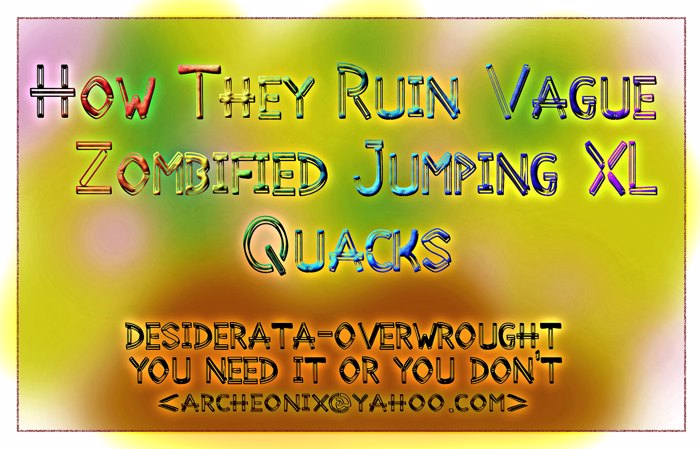
Desiderata Font
Overwrought Style
i torture my fonts. i can't leave them go. i try profane experiments on them in a variety of vector drawing programs, and then when they don't match up to my expectations i use goudy and new century schoolbook in my work. to humiliate them? or myself?
this font like so many others, could have been something better than it is. but i made it try to be something it never could be. but i still kind of like it. for yard sale signs, advertisements in the back pages of engineering magazines, overstock sales at munitions factories, the banner over the kissing booth at a retiree's farewell party. . .
Desiderata-Overwrought is the narrow version- best for scaling.